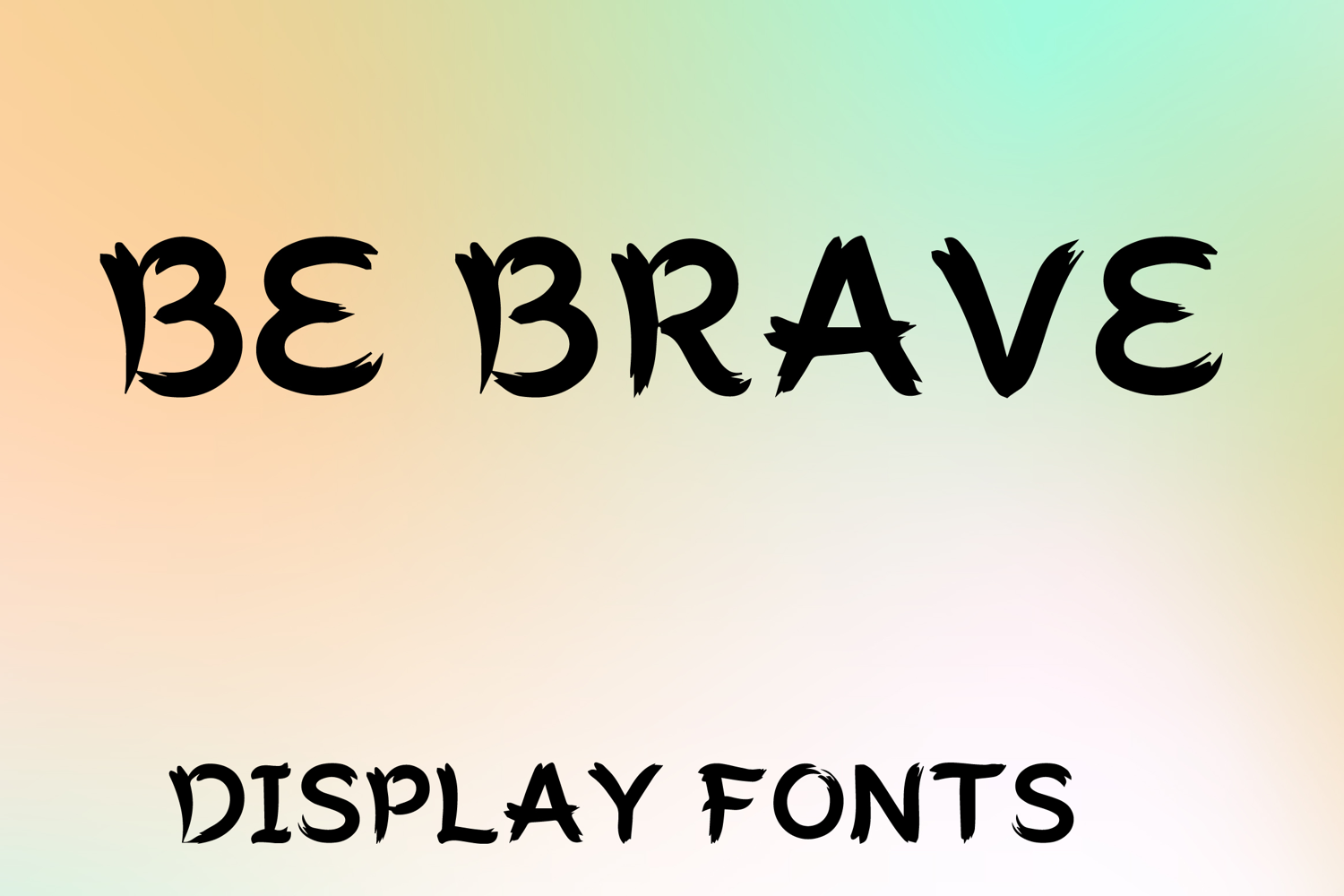
BE BRAVE
BE BRAVE is a bold display font with a rough brush-inspired style and fierce artistic character. Its uppercase letterforms feature textured edges, sharp distressed details, and expressive handcrafted strokes that create a dramatic, energetic, and eye-catching look. Designed with uppercase letters A–Z and numbers 0–9, BE BRAVE is perfect for branding, posters, packaging, book covers, headlines, logos, and creative projects that need a strong and unforgettable statement.